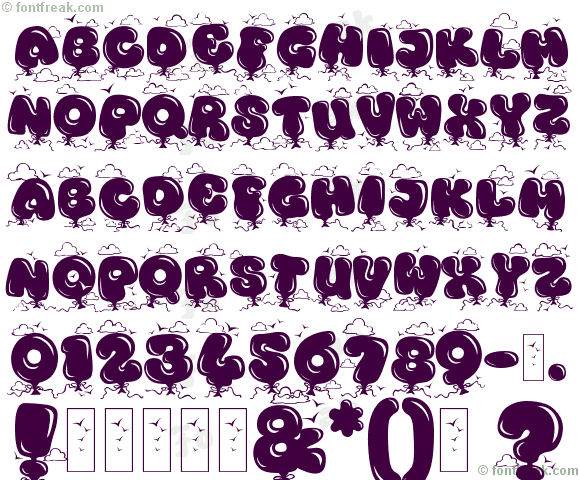
Kingthings Bloone!
The Kingthings Bloone! font, created by Kevin King in 2008, is a decorative display typeface that captures a playful and whimsical spirit. This font features rounded, balloon-like letterforms that exude a sense of fun and creativity. The stroke weight is consistent throughout, providing a uniform appearance that enhances its cheerful aesthetic. The letters are well-spaced, allowing for easy readability while maintaining a light-hearted charm. With its distinctive bubbly design, Kingthings Bloone! incorporates decorative elements that evoke a sense of joy, making it perfect for a variety of playful applications.
This font is particularly well-suited for use in children's party invitations, playful branding for toy stores, and vibrant event posters. Its fun and approachable style also makes it an excellent choice for restaurant menus aimed at families, as well as greeting cards and promotional materials for creative workshops. Graphic designers and small business owners looking to inject a sense of whimsy into their projects will find Kingthings Bloone! to be an invaluable resource.
What truly sets Kingthings Bloone! apart is its enchanting character that can transform ordinary text into a delightful visual experience. Whether you're crafting an engaging advertisement or designing a delightful event invitation, this font brings an element of joy that resonates with audiences of all ages. Its unique design ensures that any project will stand out, making it a must-have for those looking to make a memorable impression.